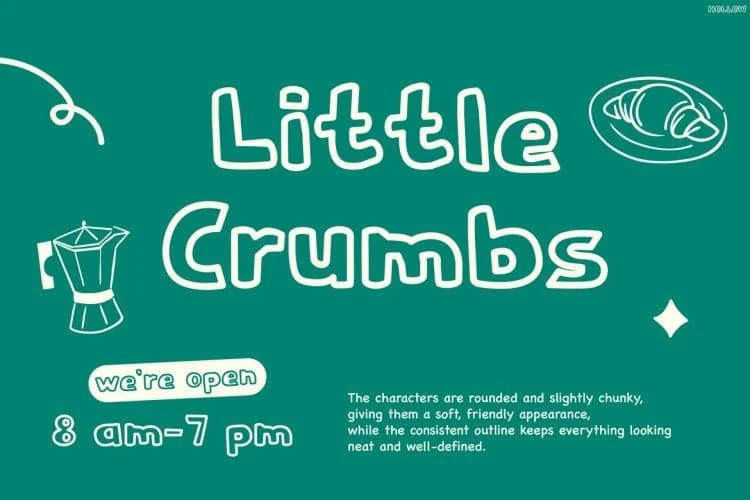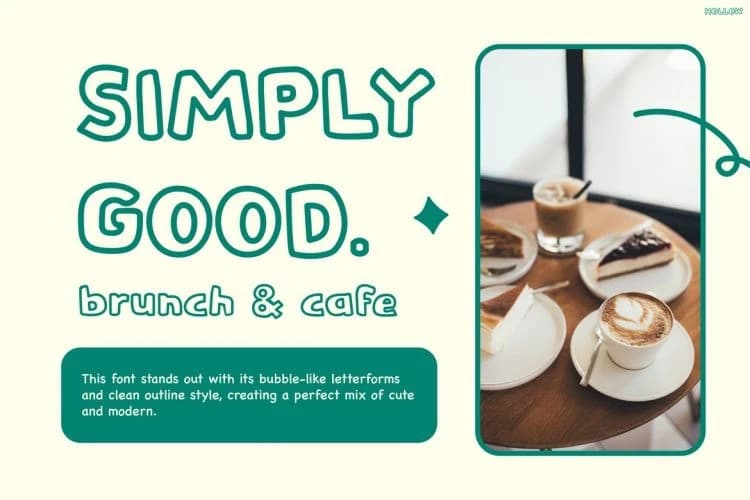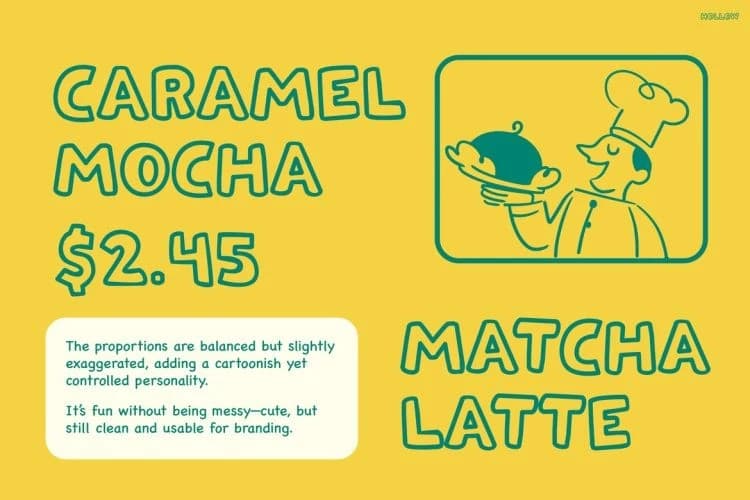
Hollow Playful Font
Hollow Playful Font is a charming outline-style typeface that combines playful bubble shapes with a clean, minimal aesthetic. Moreover, its hollow letterforms create a light and airy feel that instantly looks fun yet modern.